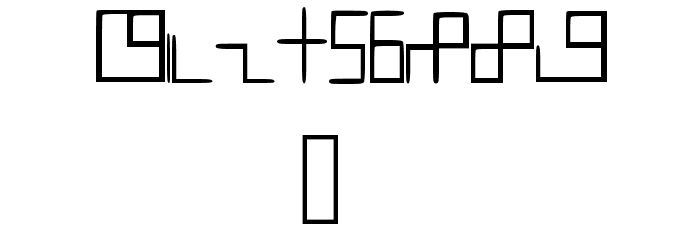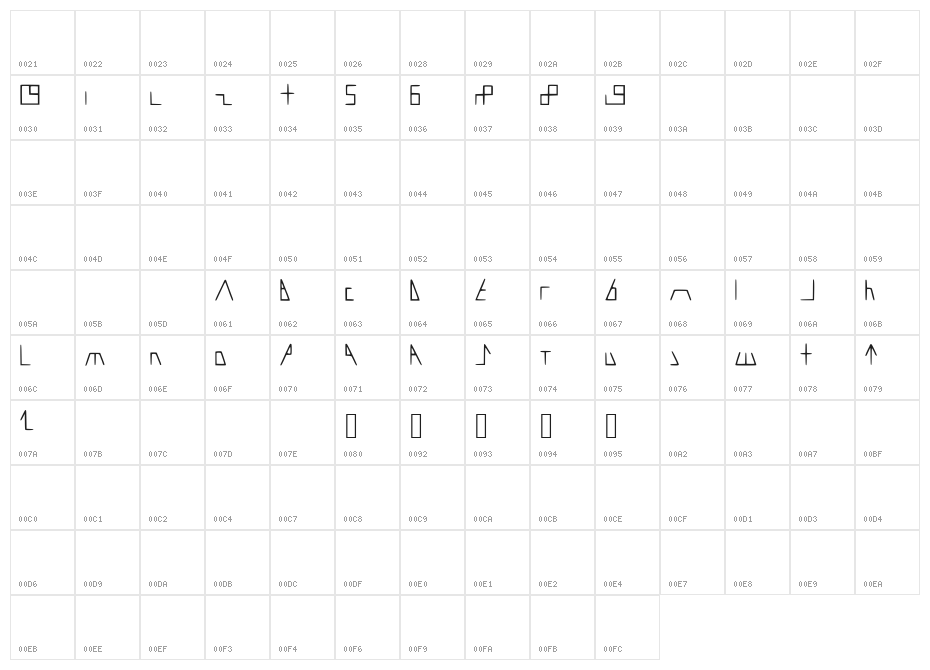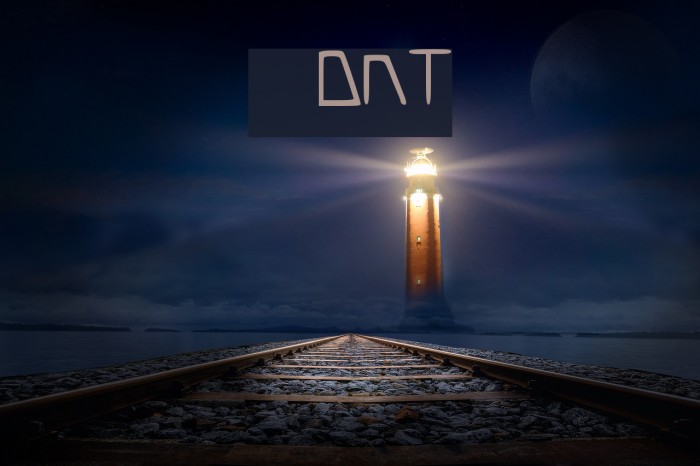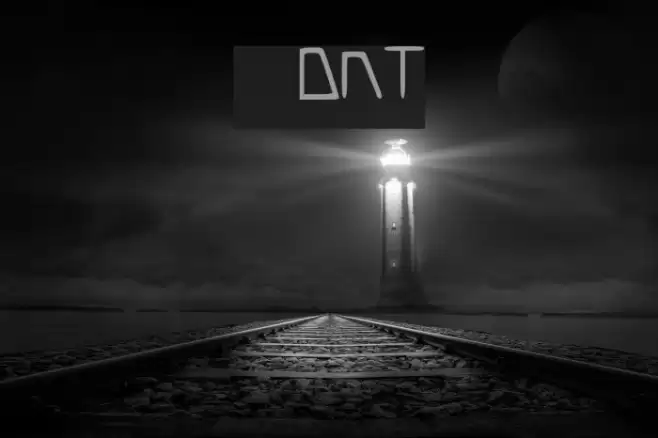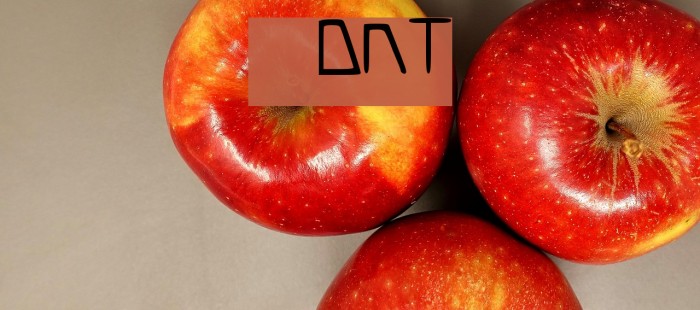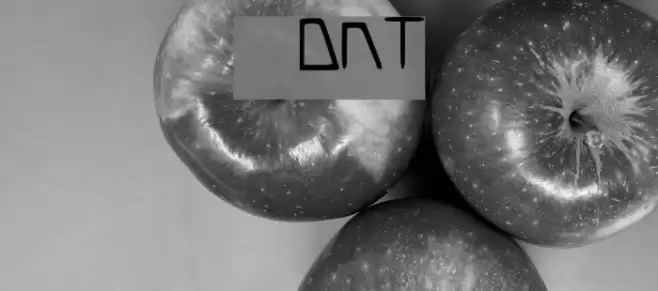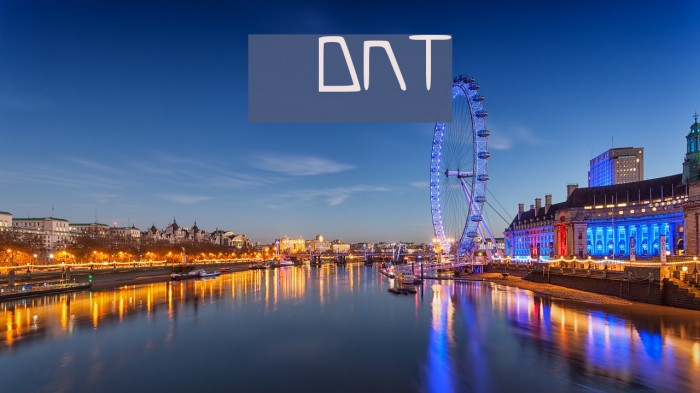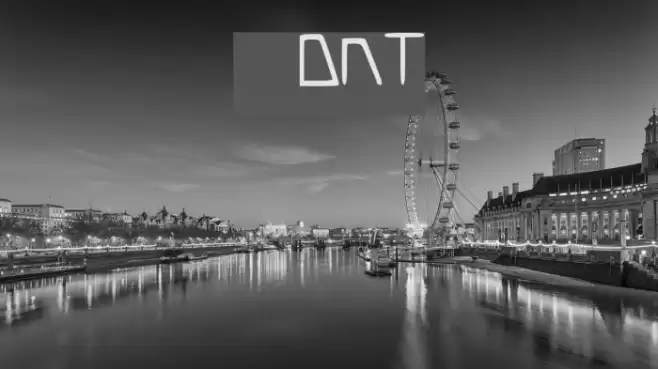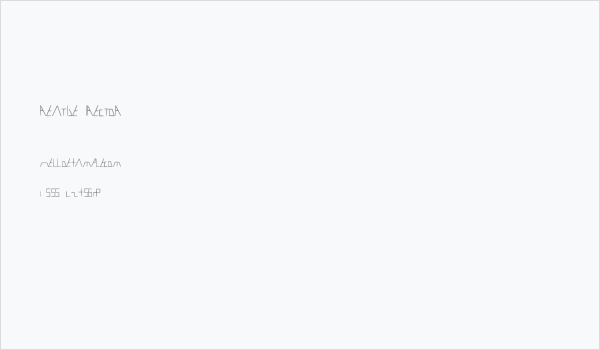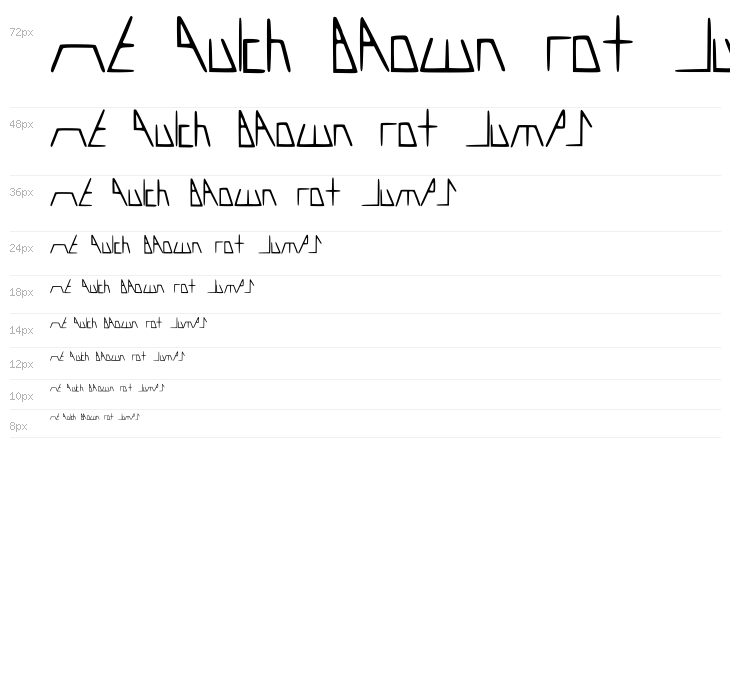
AMORC Font
AMORC Description
This font features a unique, geometric design with angular lines and sharp edges, creating a futuristic and abstract appearance. The characters are constructed with a consistent stroke width, giving it a uniform look. The uppercase letters have a distinct, stylized form that emphasizes vertical and diagonal lines, while the lowercase letters maintain a similar aesthetic with slight variations in height and width. Numbers and special characters follow the same design principles, ensuring cohesiveness across all glyphs. The overall style is modern and avant-garde, making it suitable for creative and experimental projects.
| Use Case | Logos, Posters, Digital Media |
| Proposed Projects | Ideal for sci-fi themed designs, modern art posters, innovative branding, and digital media projects. |